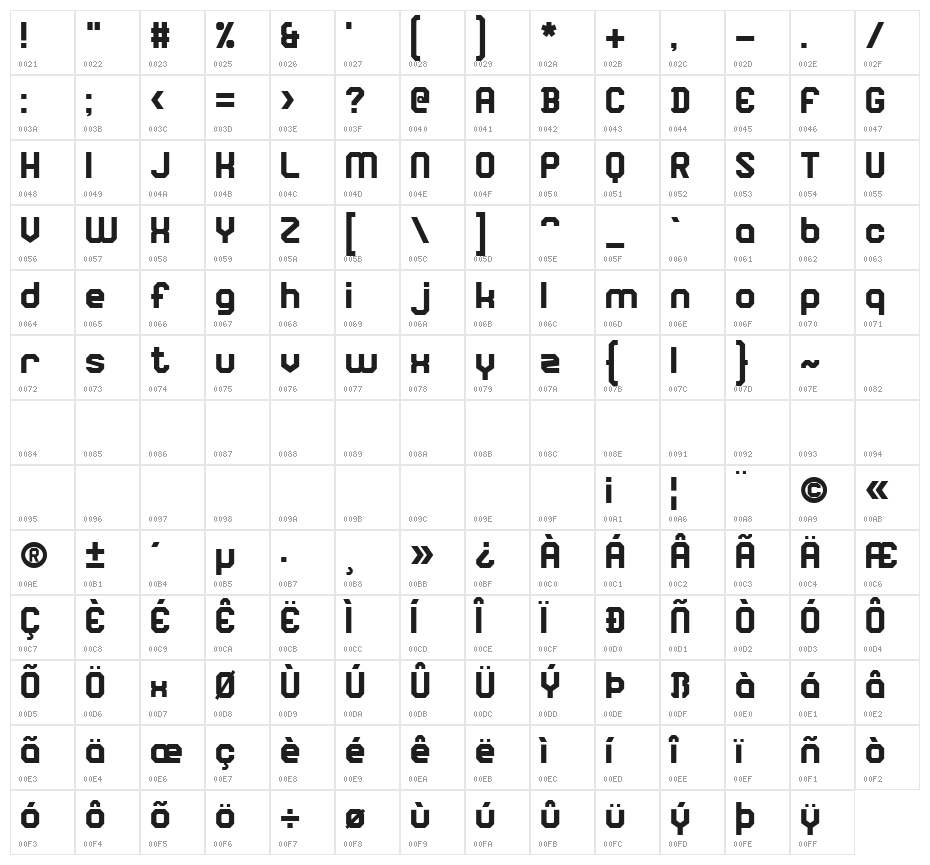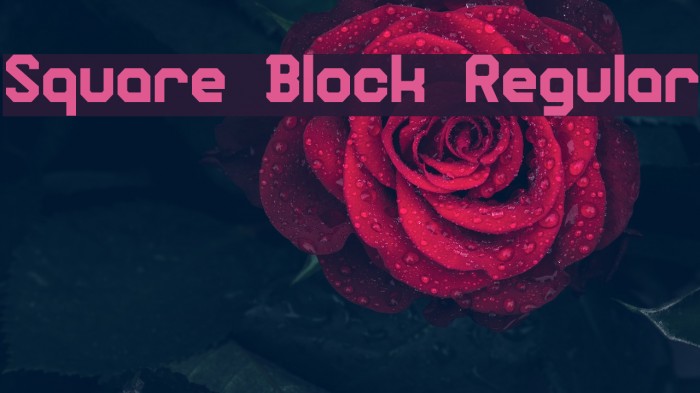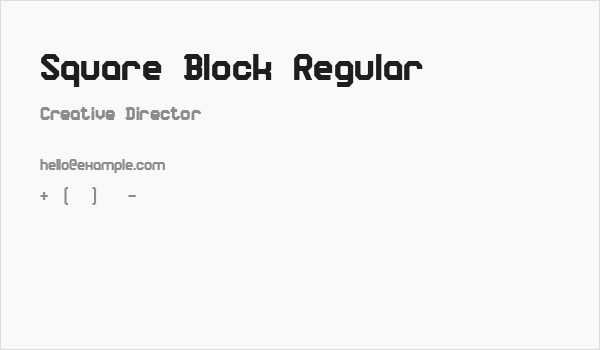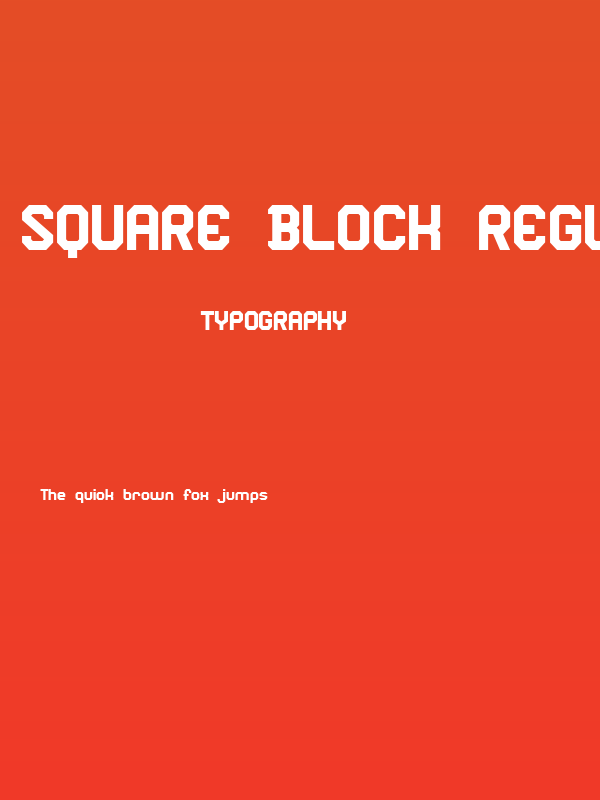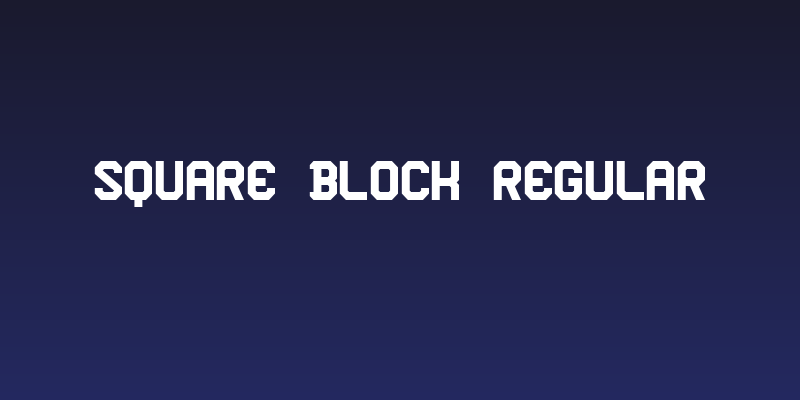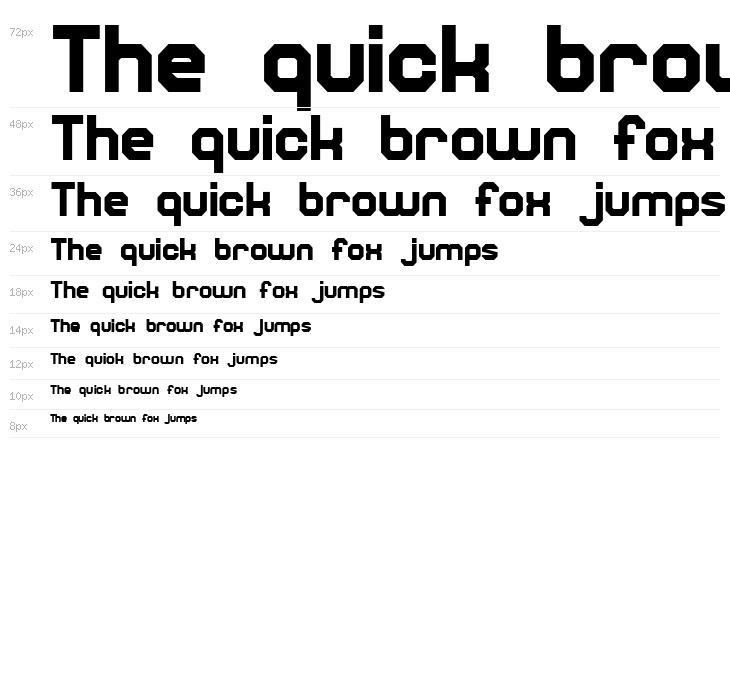
Square Block Regular Font
Square Block Regular Description
This font features a bold, geometric design with a strong emphasis on square and block-like shapes. Each character is crafted with sharp angles and straight lines, giving it a distinctly modern and industrial feel. The uppercase and lowercase letters maintain a consistent width, creating a uniform appearance. The numerals and special characters follow the same design principles, ensuring cohesion across all glyphs. The font's boldness and unique style make it stand out, ideal for projects that require a strong visual impact.
| Proposed Projects | Ideal for branding, posters, headlines, and any design requiring a strong, modern aesthetic. |